Vintage never goes out of style—and this carefully curated Vintage Font Bundle on Etsy is here to prove it. Whether you’re a Cricut crafter, a brand designer, or a retro enthusiast, this collection of 18 stunning fonts is your ticket to instantly elevating your projects with timeless charm and historical flair.
This bundle brings together bold serifs, decorative display fonts, Victorian-style typefaces, and rustic tech-themed fonts that celebrate the golden age of lettering. With full compatibility for Cricut and other cutting software, these fonts are ready to be used across a range of creative projects—think logos, posters, T-shirt designs, packaging, invitations, and vintage-themed social media graphics.
Buying fonts individually can be time-consuming and costly. A well-organized font bundle not only saves money but gives you stylistic variety, consistency, and creative flexibility. This particular vintage font bundle includes everything from serif workhorses to dramatic blackletter fonts, so you’re ready for any aesthetic direction.
Plus, bundles like this ensure all included fonts are cohesively styled, making them perfect for font pairing, an essential element in professional-level typography design.
Here’s a quick breakdown of the highlight fonts included in this treasure chest:
A classic serif font with rustic edges, Candrika offers strong readability with just the right amount of nostalgic character.
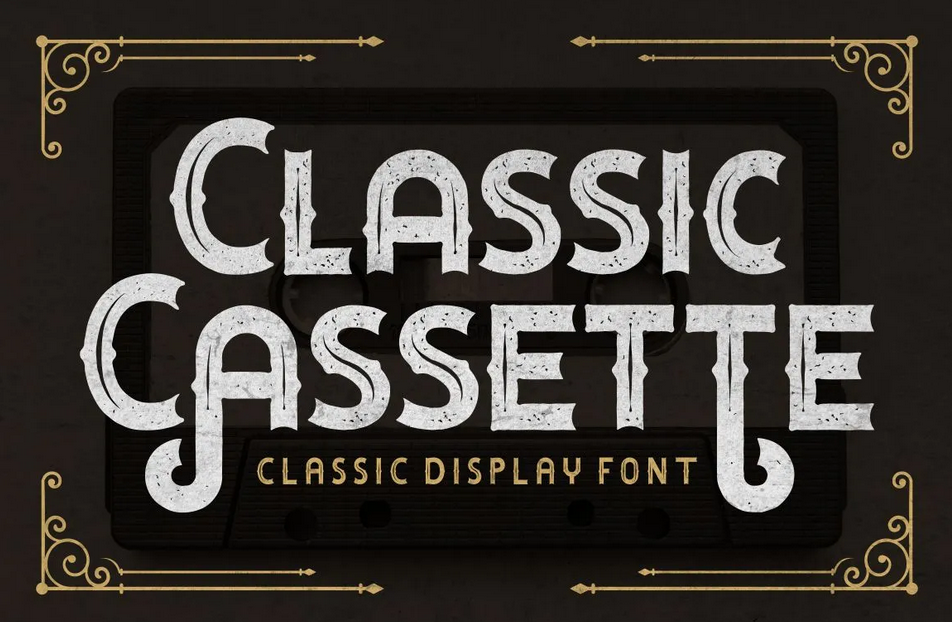
Inspired by the retro vibes of the ‘80s and ‘90s music scene, this font screams nostalgia and is perfect for T-shirts, merch, and poster designs.
Bold and dramatic, Darkrise adds a dark gothic twist—great for book titles, metal band logos, and themed decor.
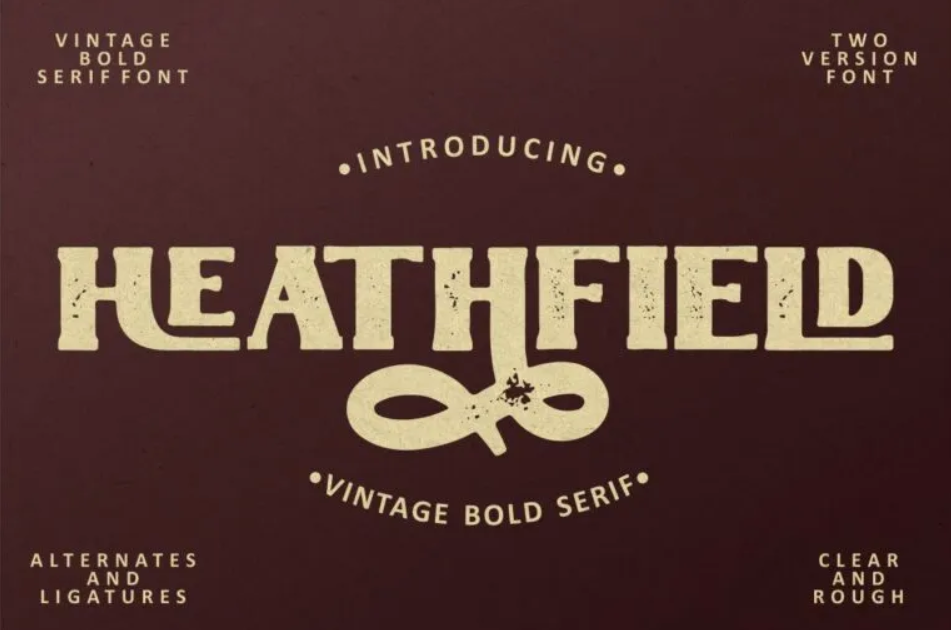
Clean yet powerful, Heathfield is made for attention-grabbing headlines and labels that demand respect.
Channeling American western poster typography, Old Beck is your go-to for vintage branding and themed events.
Perfect for antique-style branding or signage, Old Spokes gives off that woodblock-printed newspaper feel.
A sleek and modernized vintage font that balances clean lines with a touch of retro elegance.
A regal serif font with ornate details—ideal for vintage logos, emblems, and packaging.
Sister to Royal King, this version adds femininity and flair, with elegant curves and royal class.
Heavily detailed and inspired by 1800s signage, Royal Victor is dramatic and stylish—perfect for themed posters and events.
A decorative serif with elegant alternates, perfect for classy branding or event stationery.
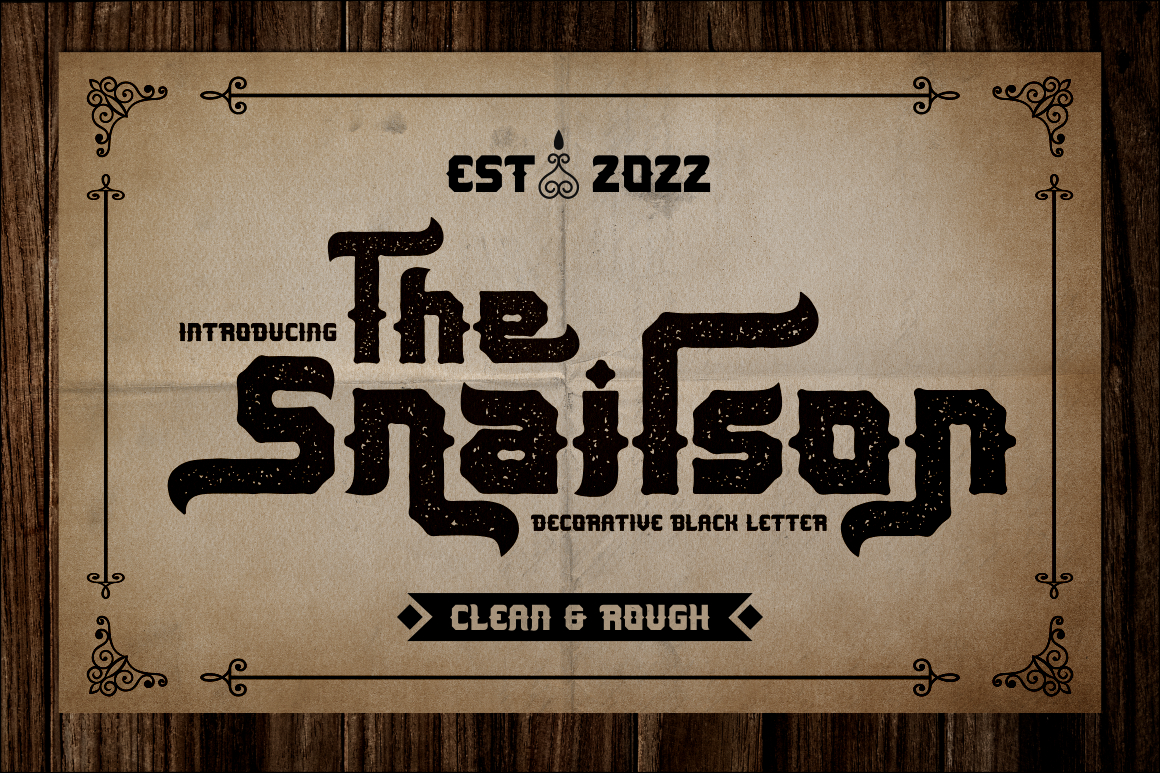
With its intricate blackletter form, The Snailson brings medieval-inspired authenticity to gothic, religious, or fantasy themes.
A font that uniquely fuses retro and futuristic vibes, ideal for vintage tech or cyberpunk design concepts.
Clean, bold, and versatile. It adds a retro feel to modern packaging and branding designs.
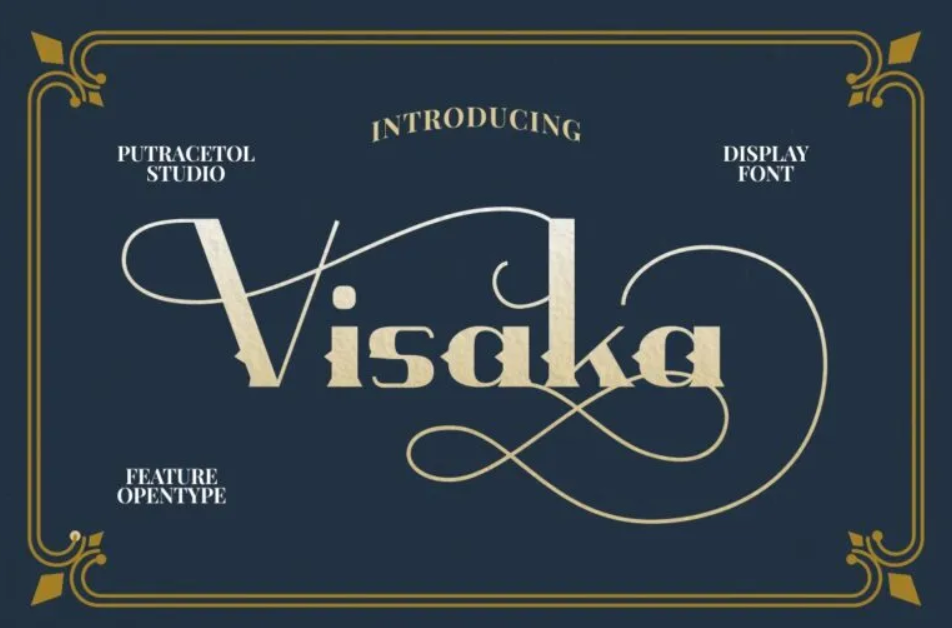
Combining minimalism and heritage, VISAKA is ideal for refined editorial projects.
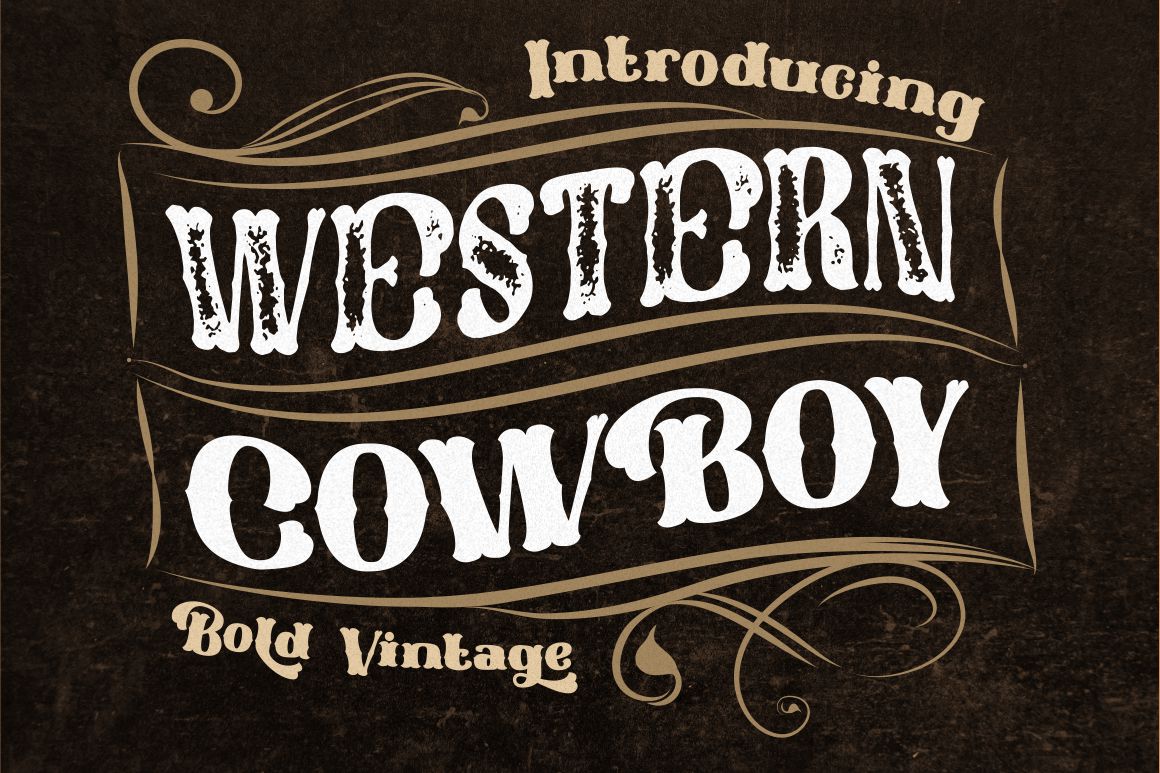
As the name suggests, this font brings the Wild West to life—great for themed parties, rodeo flyers, and western film posters.
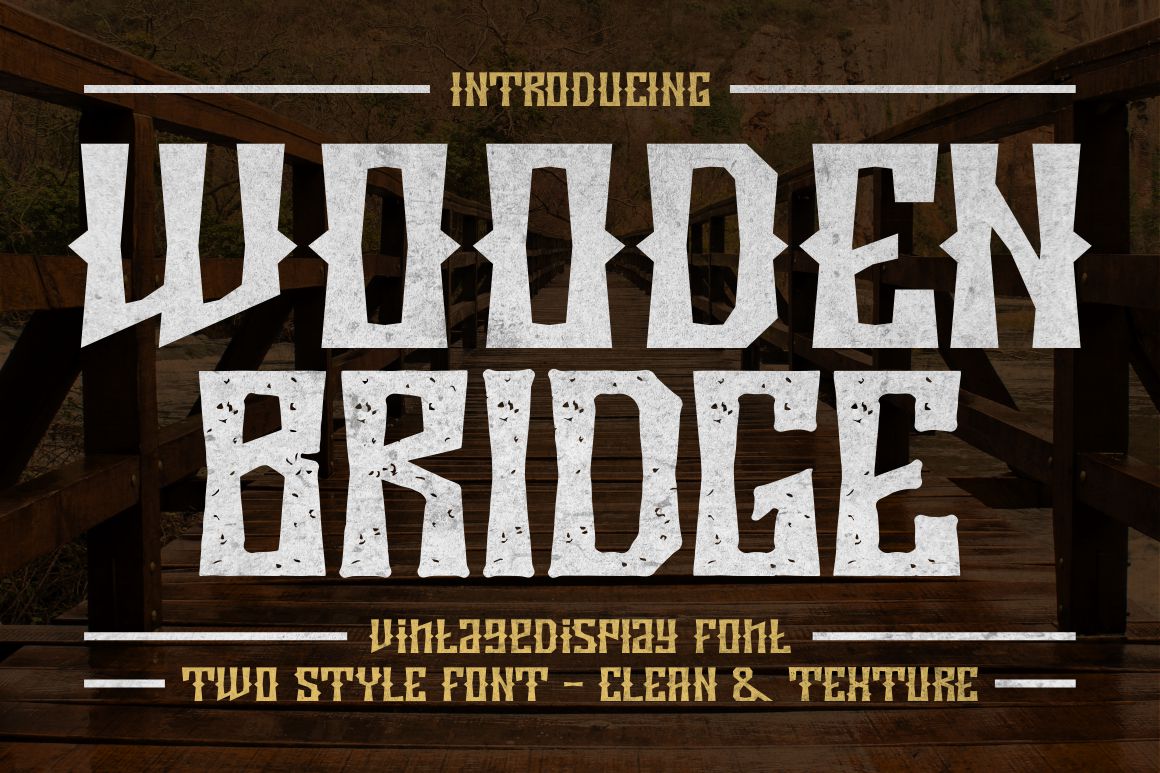
Sturdy and handcrafted in feel, this font is excellent for signage, outdoor branding, or heritage food labels.
Elegant with a hand-drawn touch, Woodshed suits invitation cards, badges, and cafe menus with a rustic twist.
This bundle is incredibly versatile and can be used for:
Whether you’re designing for print or digital media, these fonts provide the flexibility and visual appeal to match your concept’s era and tone.
Want a perfect vintage font pair?
Try combining Old Beck (headline) with Vintage Museum (body text) for a bold-retro-meets-clean-sans style. Or, mix Royal Queen (elegant serif) with VISAKA (simple sans) for a classy, balanced aesthetic.